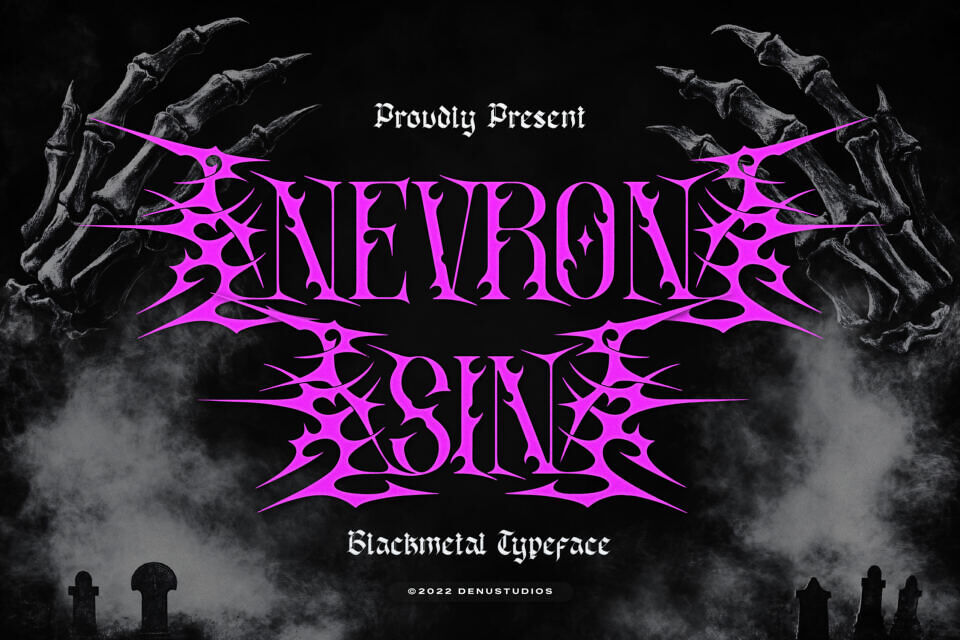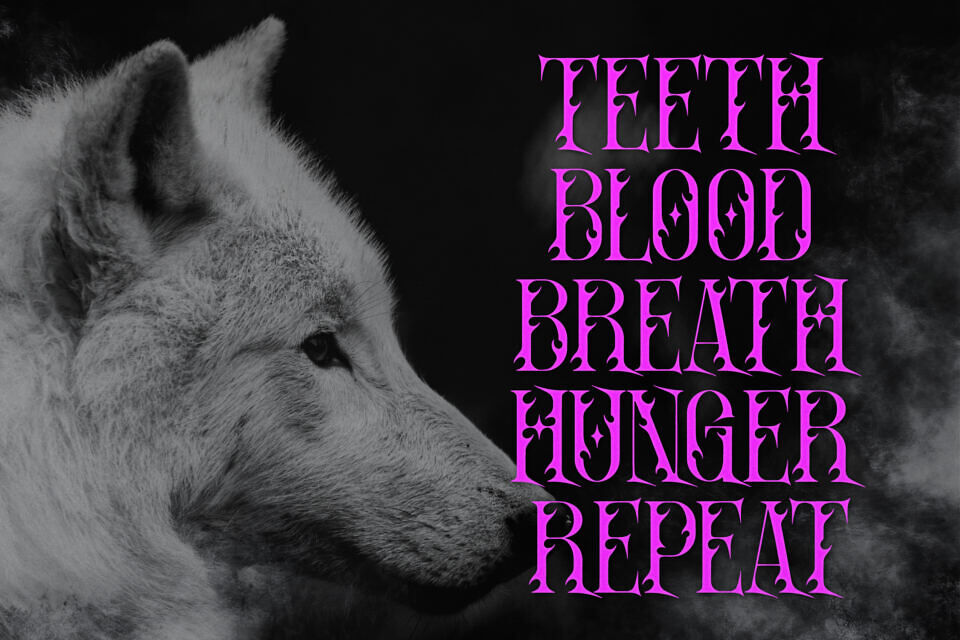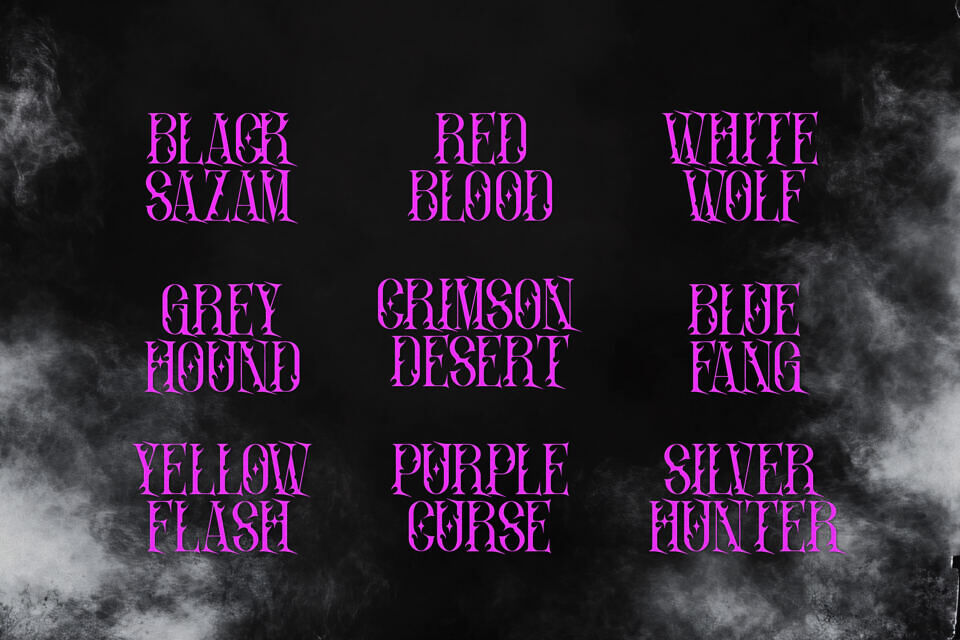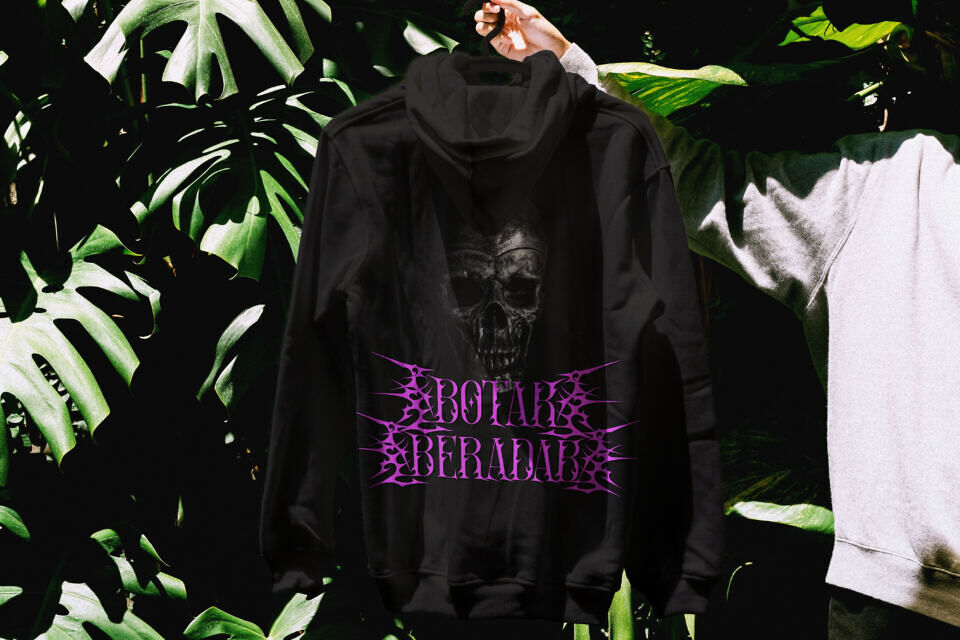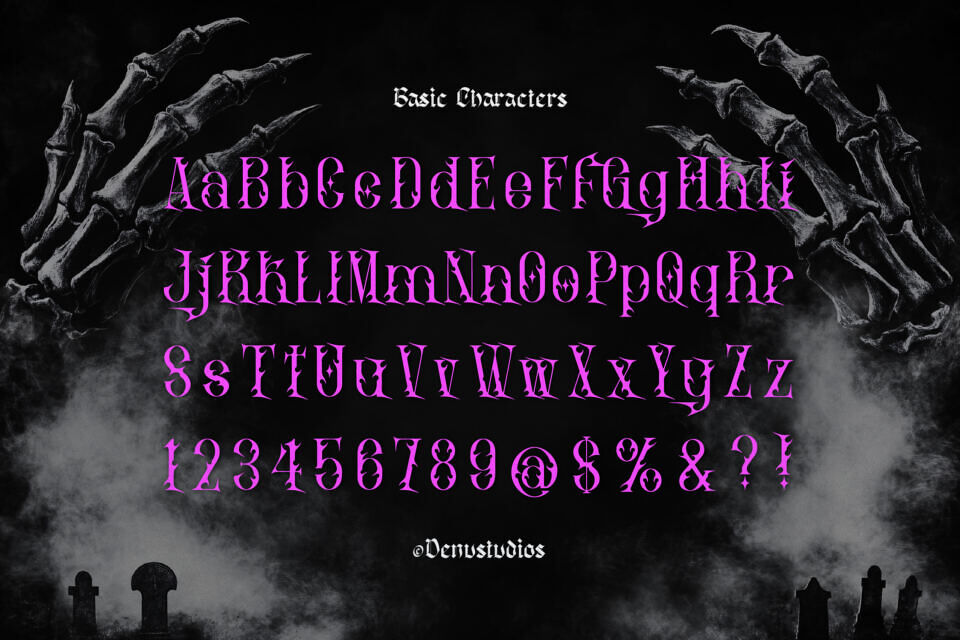
Nevron Sin Font
Unleash the raw, visceral energy of the underground with Nevron Sin, a definitive blackmetal typeface designed for projects that demand a sharp, aggressive edge. This high-impact display font features lethal, thorn-like extensions and jagged, asymmetrical letterforms that capture the chaotic spirit of extreme music subcultures.
With its impenetrable silhouettes and “wicked” aesthetic, Nevron Sin is the premier choice for heavy metal band logos, edgy streetwear branding, horror film titles, and dark fantasy gaming headers.